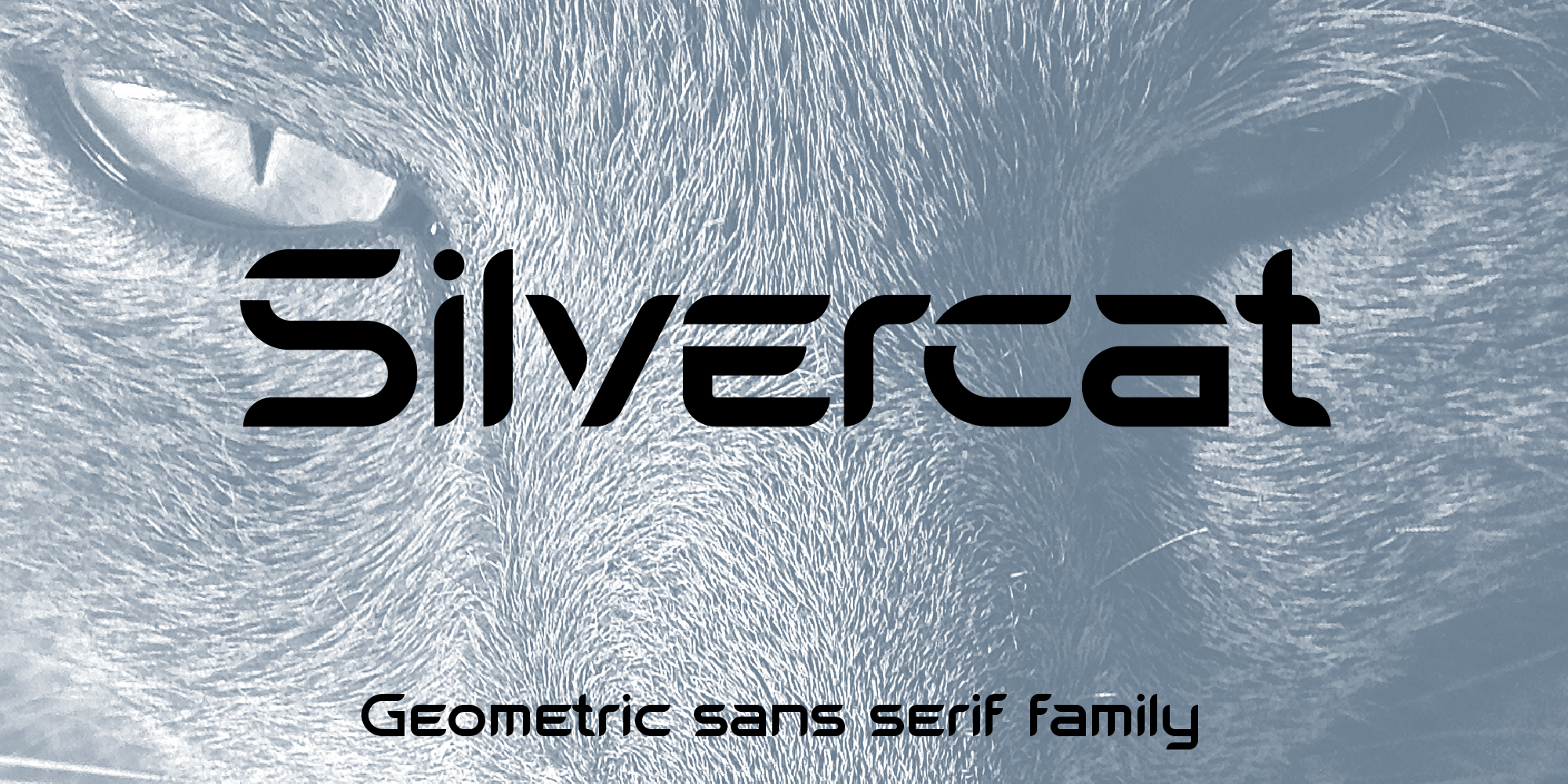
Silvercat Font is perfect for luxury pet boutiques, elegant cat café branding, mystical moon-themed venues, sophisticated jewelry stores, premium cat grooming services, and enigmatic entertainment establishment signage.
Silvercat Font is exciting because it captures the graceful mystery and elegant sophistication of silver cats, delivering a sleek typeface that embodies feline grace, lunar mystique, and the sophisticated allure of nocturnal elegance.
The Silvercat Font family includes graceful variations: Silvercat Light, Silvercat Regular, Silvercat Medium, Silvercat Bold, feline alternates, and decorative elements inspired by cat silhouettes and moonlight reflections.
Prowl with elegant sophistication using Silvercat Font Free Download, a gracefully crafted typeface that brings feline mystique and lunar elegance to your most sophisticated design projects. This sleek font excels in creating memorable branding for luxury pet services, mystical wellness centers, moon-themed entertainment venues, and premium lifestyle brands that celebrate the independent spirit and mysterious beauty of cats. The elegantly designed letterforms feature flowing curves and feline proportions that simulate the graceful movements of cats in moonlight while ensuring excellent readability across all luxury and mystical applications. Perfect for high-end veterinary clinics, cat show materials, mystical jewelry collections, and nocturnal entertainment venues that need to convey sophistication and mysterious allure, this font connects with audiences who appreciate the independent beauty and enigmatic charm of feline companionship. Each character moves with feline grace, making every sophisticated message feel like a whispered secret from a mysterious silver cat that knows ancient wisdom. Silvercat Font transforms ordinary communications into elegant mysteries that celebrate the sophisticated beauty of cats while inspiring audiences to embrace the independent grace and mysterious charm that makes feline companions so captivating and beloved.